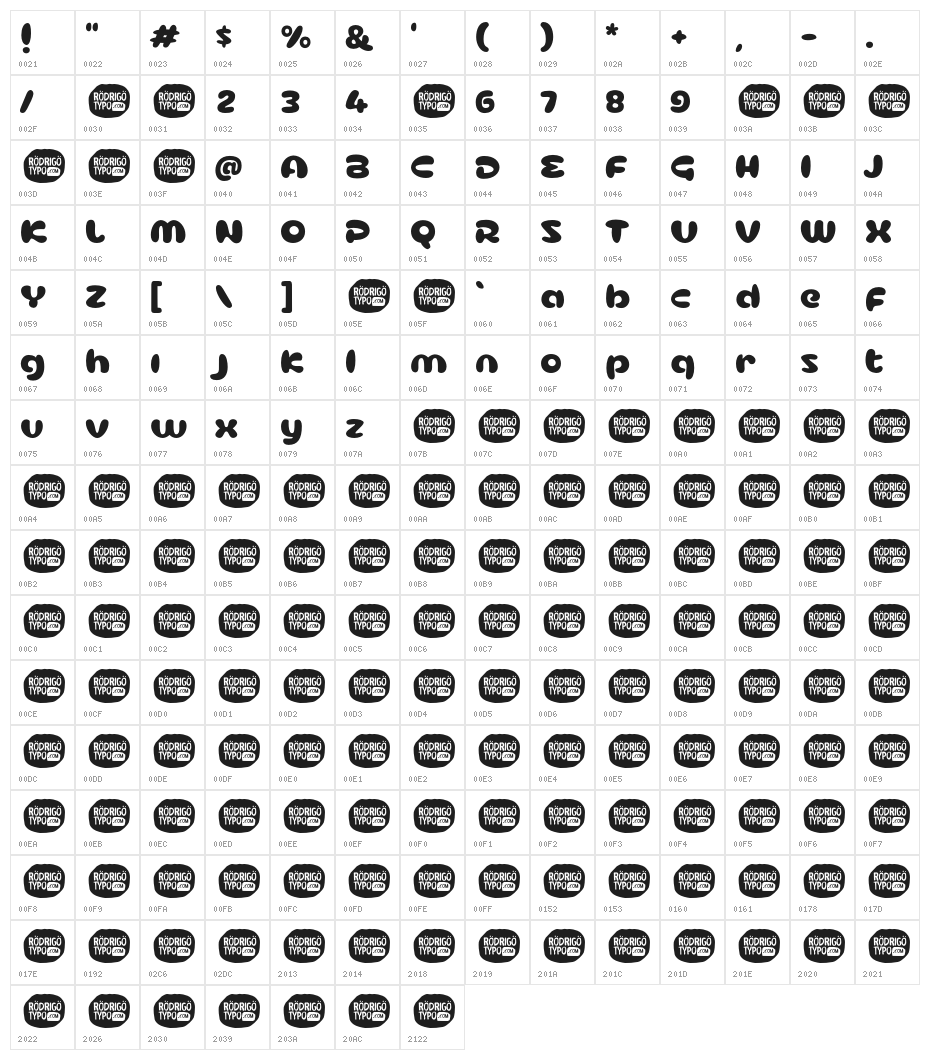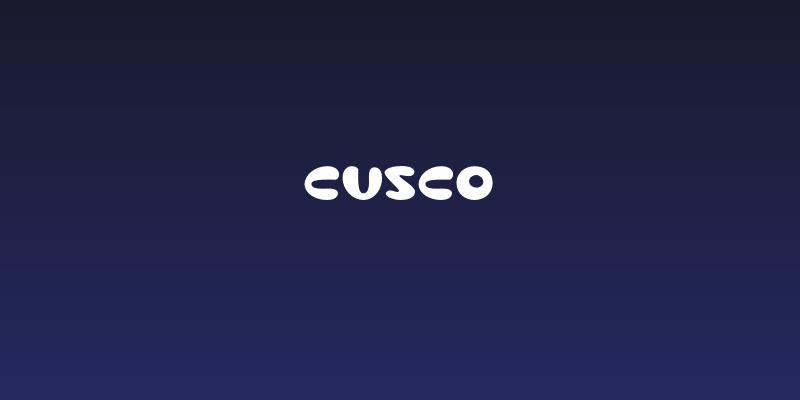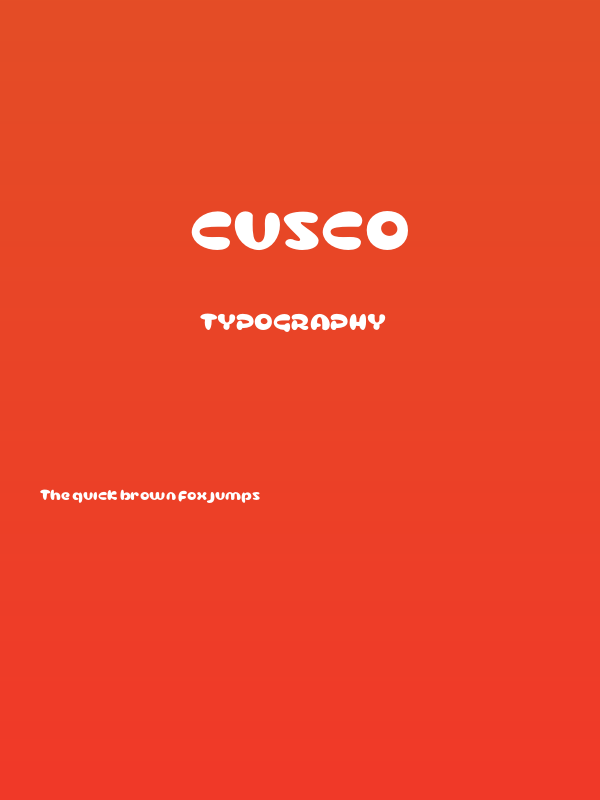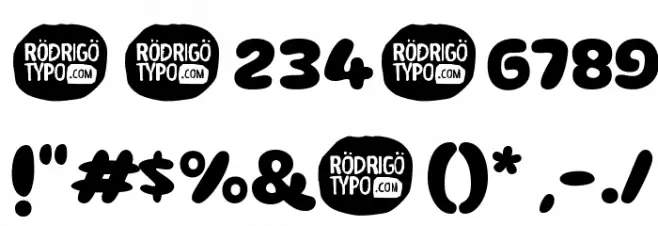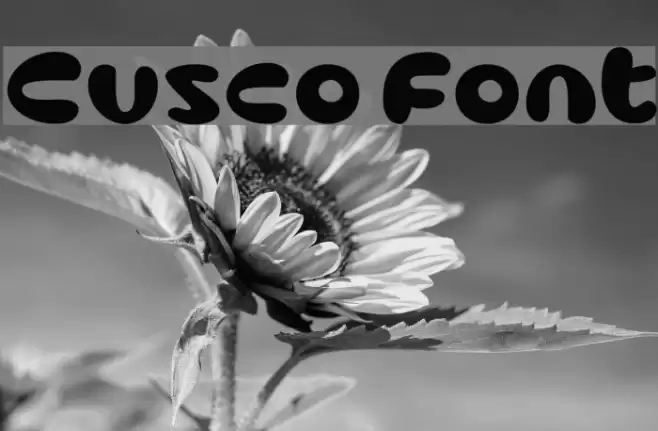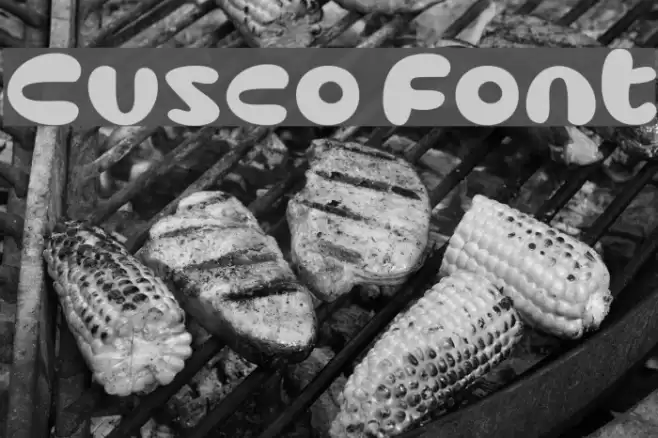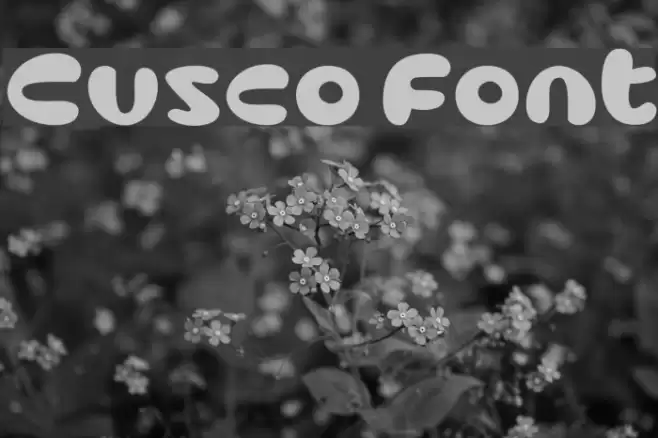
Cusco Font
Cusco Description
This font features a playful and bold design with rounded, bubble-like characters that convey a sense of fun and creativity. The letters are thick and have a consistent stroke width, giving them a strong presence on the page. The rounded edges and smooth curves create a friendly and approachable aesthetic, making it suitable for informal and lighthearted applications. The font includes both uppercase and lowercase letters, numbers, and a variety of special characters, ensuring versatility in design projects.
| Overall Style | Playful |
| Proposed Projects | Ideal for children's books, playful branding, party invitations, and creative posters. |